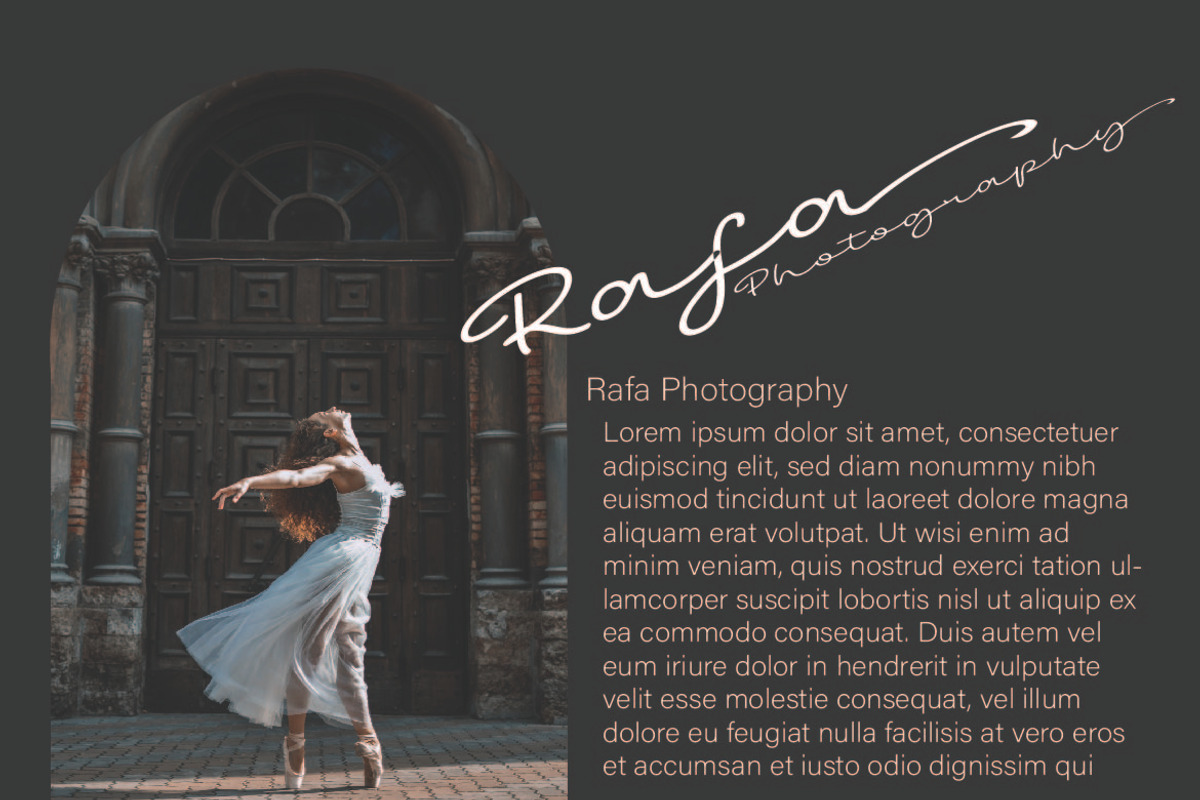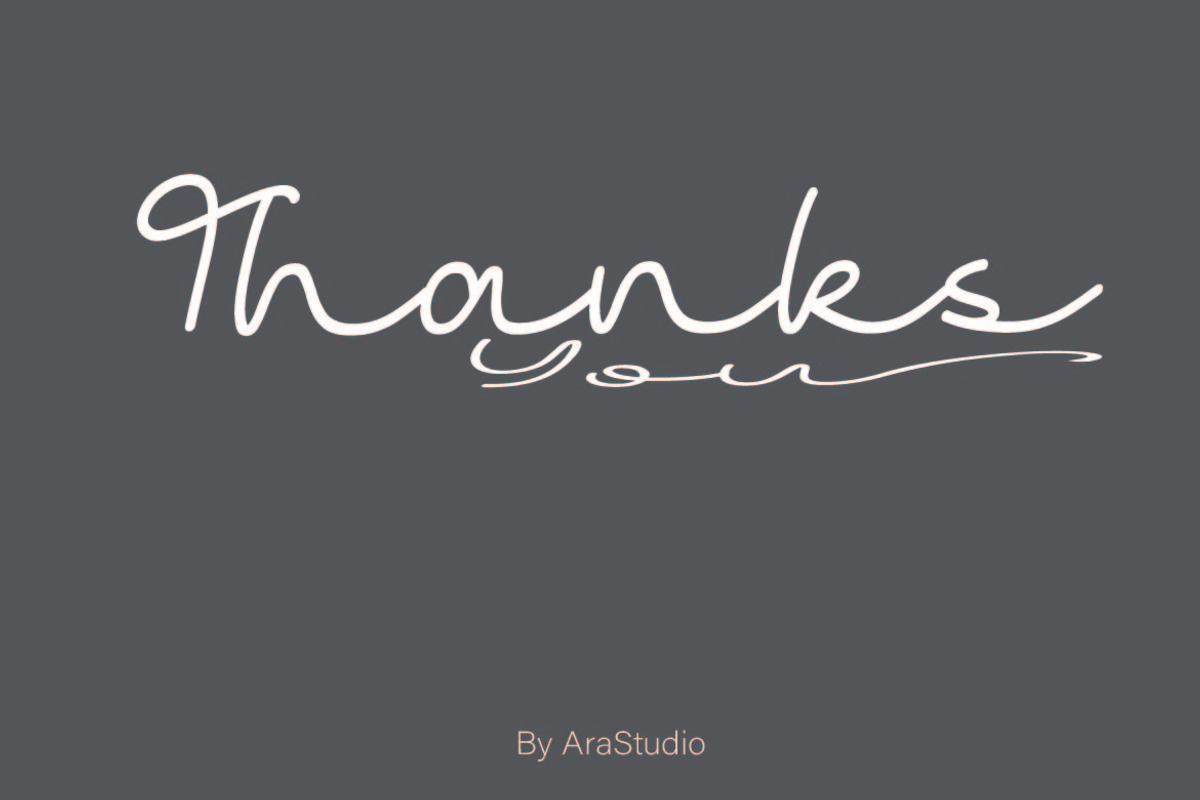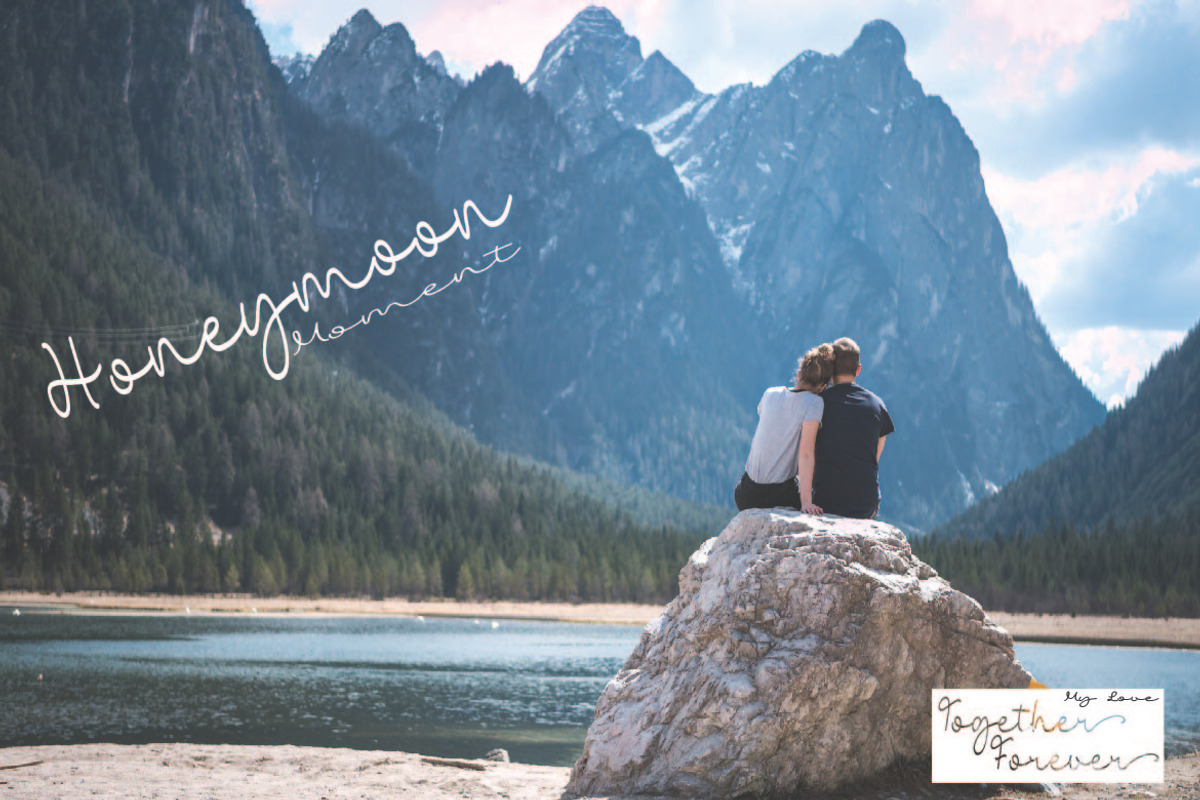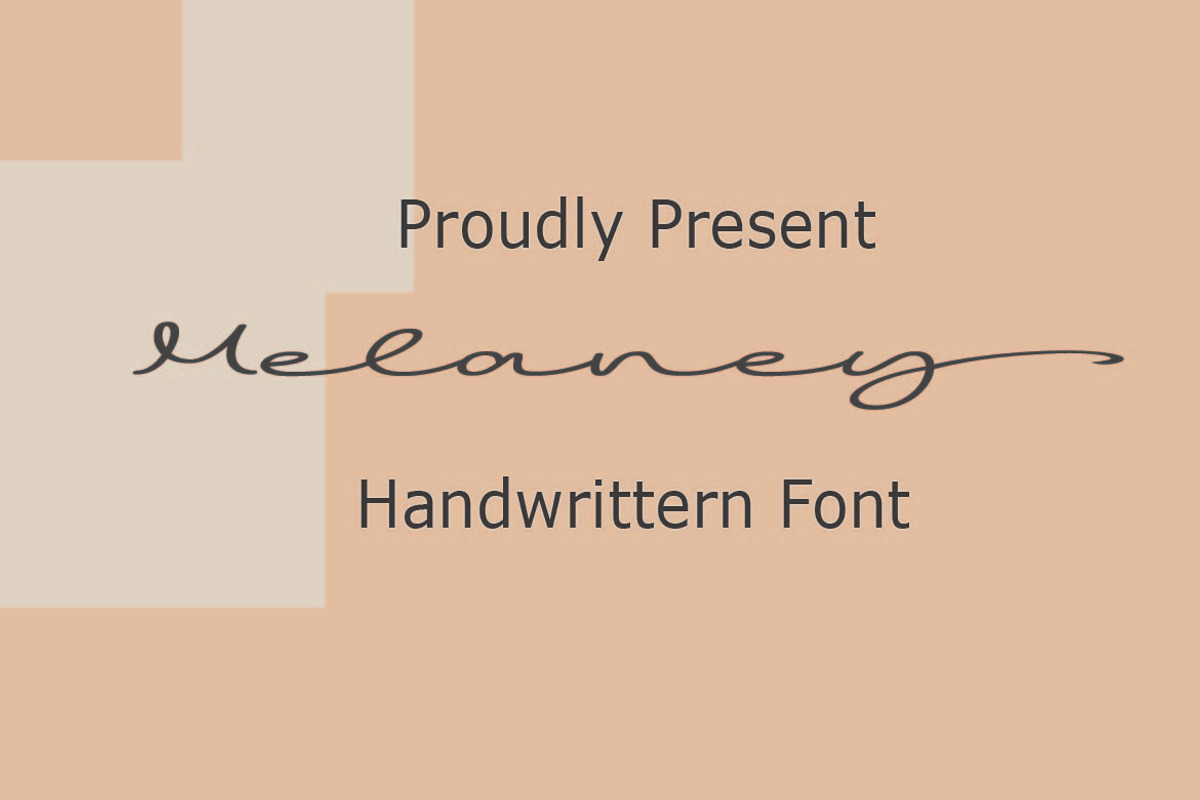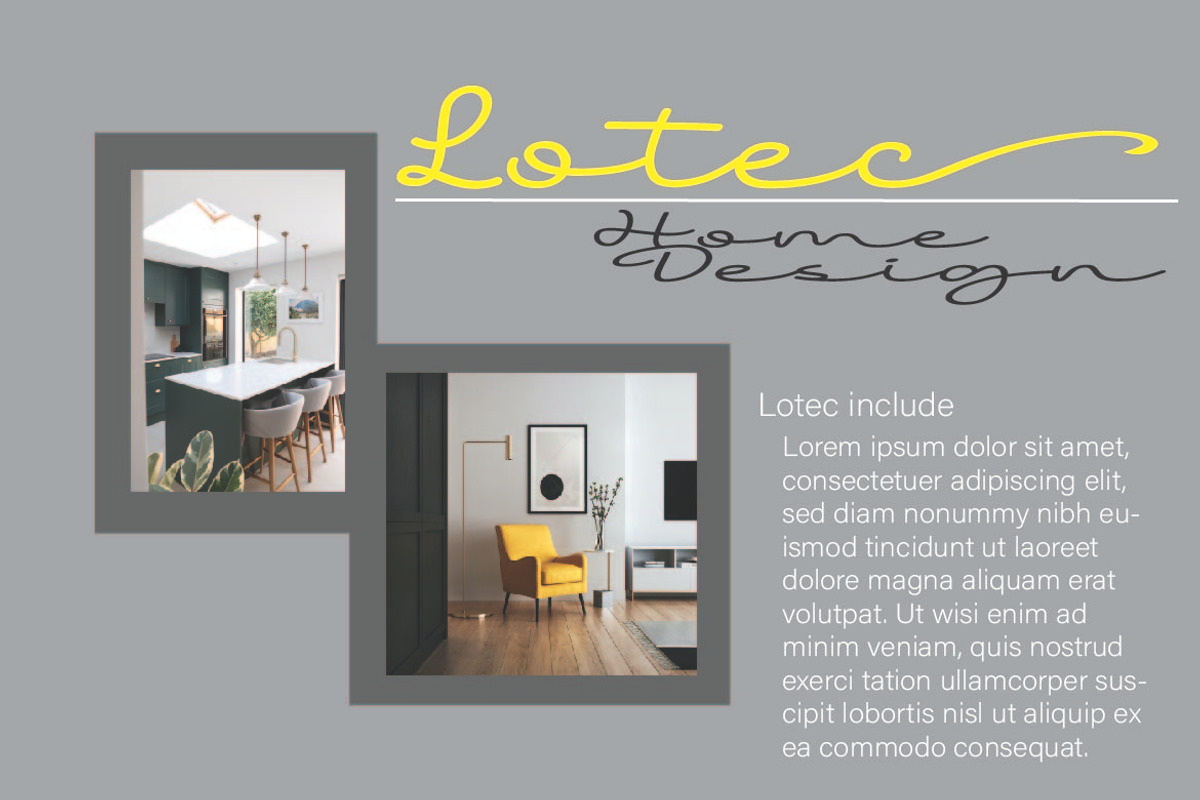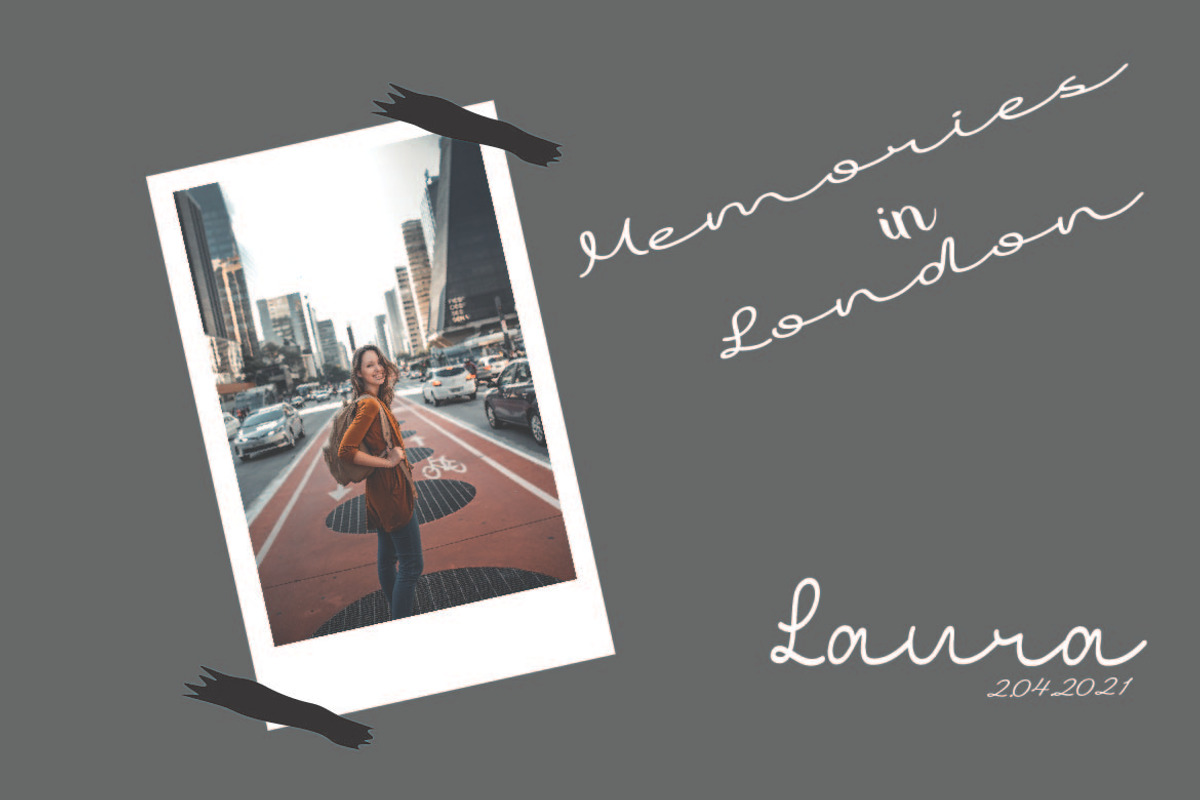
Melaney
Melaney is a modern Handwritten. perfect for wedding invitations, calligraphy logos for branding, elegant websites, card invitations, advertising, social media posts, and anything else your heart desires!
Included with Melaney is a full set of ending lowercase swashes, Ligature, to create a realistic handwritten calligraphy look for your designs.